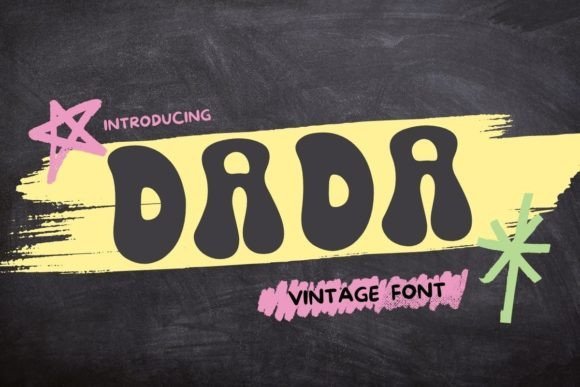
The Ultimate Design Rebel: Dada Font
Have you ever been stuck in a creative rut, staring blankly at your design software, desperately searching for that spark to bring your project to life? We’ve all been there. It’s in those moments of design desperation that we need a font that can shake things up and add a much-needed dose of personality to our work.
Enter Dada Font, a wavy retro groovy display font that’s perfect for designers who want to add a touch of vintage charm and edginess to their designs. With its irregular lines and uneven letters, Dada Font creates a dynamic and energetic look that’s guaranteed to grab attention. Whether you’re working on a poster, album cover, or any other design that needs a little extra flair, Dada Font is the perfect addition to your toolkit.
What sets Dada Font apart is its ability to add a unique, handcrafted feel to your designs, making them stand out in a crowded market. With Dada Font, you can add a touch of personality to your work and make it truly unforgettable.
Dada Font Key Features
- Font Family: Dada Font is a sans-serif font family.
- Size: Available in 6 weights: Thin, Light, Regular, Medium, Bold, and Black.
- Unique Characteristics: Features a distinctive geometric shape with rounded corners and a friendly, approachable feel.
Dada Font Review
I was excited to dive into the Dada Font, but my expectations were met with mixed results. While it has some unique qualities, it also falls short in certain areas.
- Unique Character Set: The Dada Font offers a distinct set of characters that can add an edgy touch to designs.
- Expressive Nature: This font is perfect for projects that require a bold, expressive feel.
- Customization Options: The font’s customization options allow for a high degree of flexibility, making it suitable for a wide range of designs.
- Limited Legibility: In certain contexts, the font’s unique character set can lead to reduced legibility, making it difficult to read.
- Overuse: The font’s bold, expressive nature can be overwhelming if used excessively, leading to design fatigue.
- Lack of Versatility: While the font is suitable for certain projects, it may not be the best choice for more conservative or traditional designs.
The Dada Font is a polarizing choice that will either resonate with designers looking for a bold, expressive feel or fall flat due to its limitations. While it excels in certain areas, it may not be the best fit for every project.
For a more unique look, experiment with combining Dada Font with other design elements, such as bold colors and abstract shapes.
For a more creative approach, use the ‘Shape’ tool to create custom text shapes and combine them with Dada Font for a unique look.
For a more polished look, use the ‘Alignment’ tool to center and justify your text with Dada Font.
Dada Font is ideal for:
- Adding a touch of whimsy to your designs.
- Creating bold, eye-catching headlines.
- Adding a unique